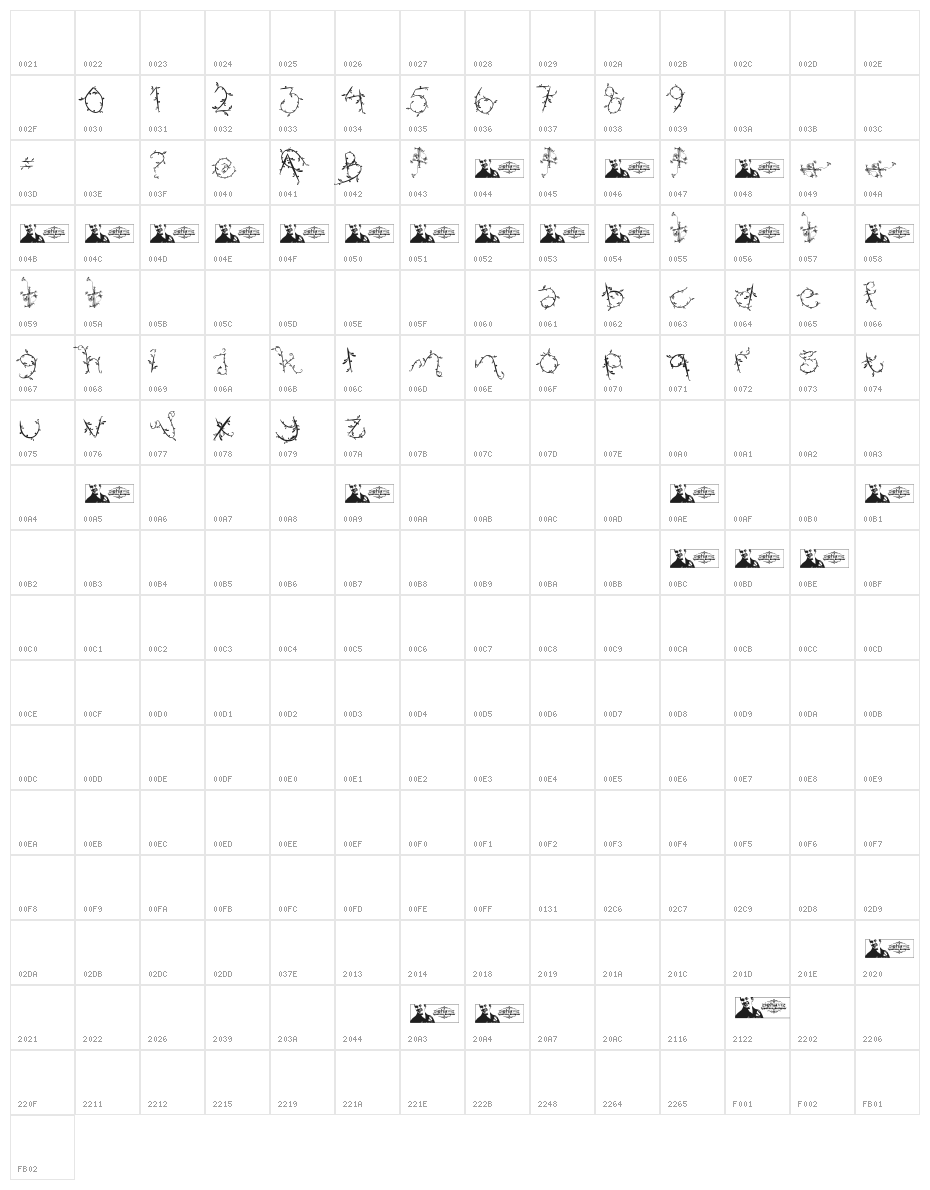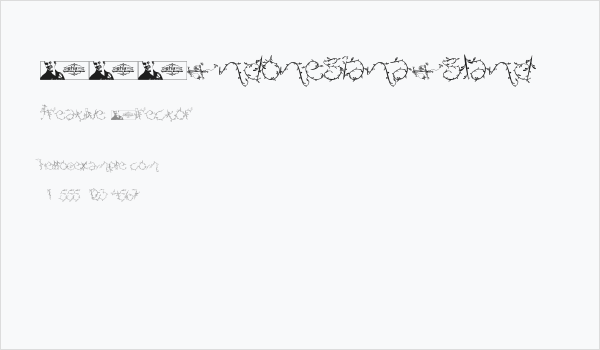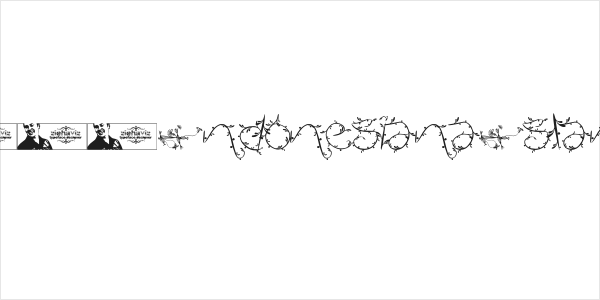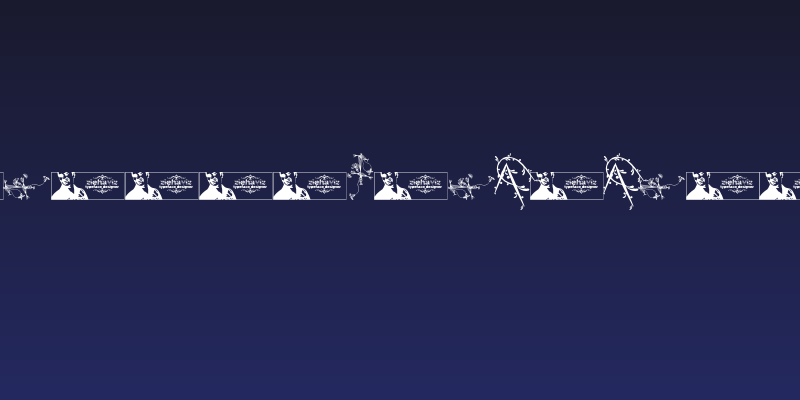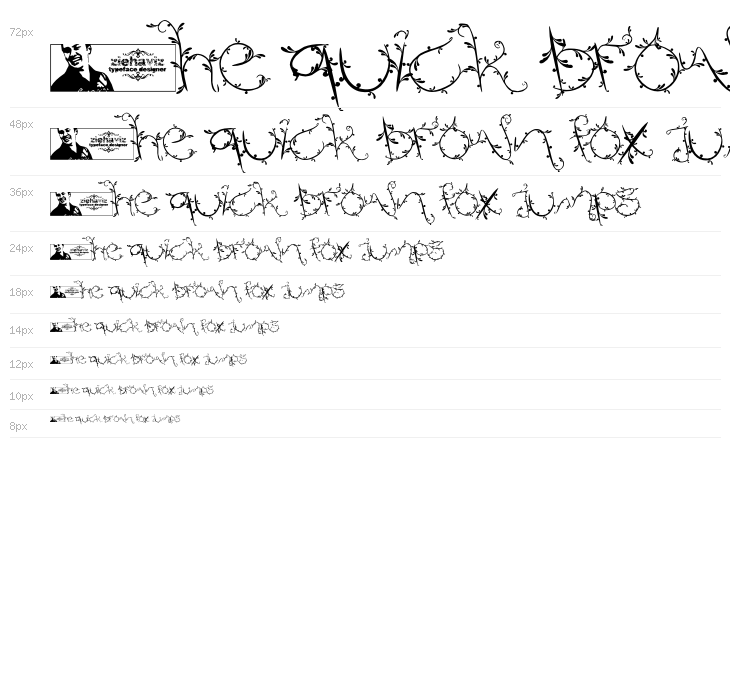
FTFIndonesianaIsland Font
FTFIndonesianaIsland Description
This font is a decorative and ornate typeface that features intricate vine-like embellishments extending from each character. The uppercase and lowercase letters are adorned with swirling floral motifs, giving the font a whimsical and nature-inspired appearance. The numbers and special characters are similarly decorated, maintaining a cohesive style throughout. The overall design is highly detailed, making it suitable for projects that require a touch of elegance and creativity. The font's unique style is reminiscent of hand-drawn illustrations, with a focus on organic shapes and flowing lines.
| Proposed Projects | Ideal for wedding invitations, greeting cards, botanical-themed branding, and artistic posters. |